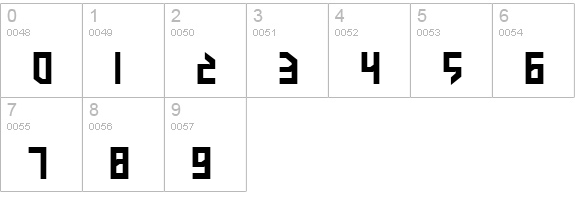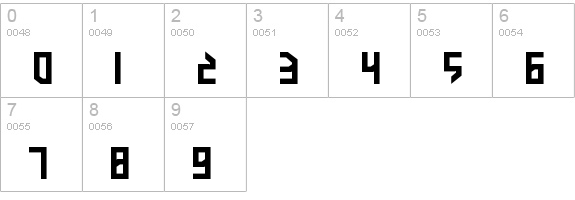
Valkyrie Expanded Bold is a strong, high-contrast, extended-width variant in the Valkyrie typeface family \xE2\x80\x94 well suited to headlines, attention-grabbing titles, and strong calls-to-action.
Valkyrie Expanded Bold font is a striking and bold typeface that exudes power and authority. With its sharp lines and strong presence, this font demands attention and makes a bold statement. Perfect for headlines, titles, and branding, Valkyrie Expanded Bold adds a touch of modernity and sophistication to any design. What's even better is that Valkyrie Expanded Bold font is available for free download at FontsMarket.com. So you can easily enhance your projects with this eye-catching font without any cost. Don't miss out on the opportunity to elevate your designs with the impactful style of Valkyrie Expanded Bold. Download it now and make a lasting impression with every use.